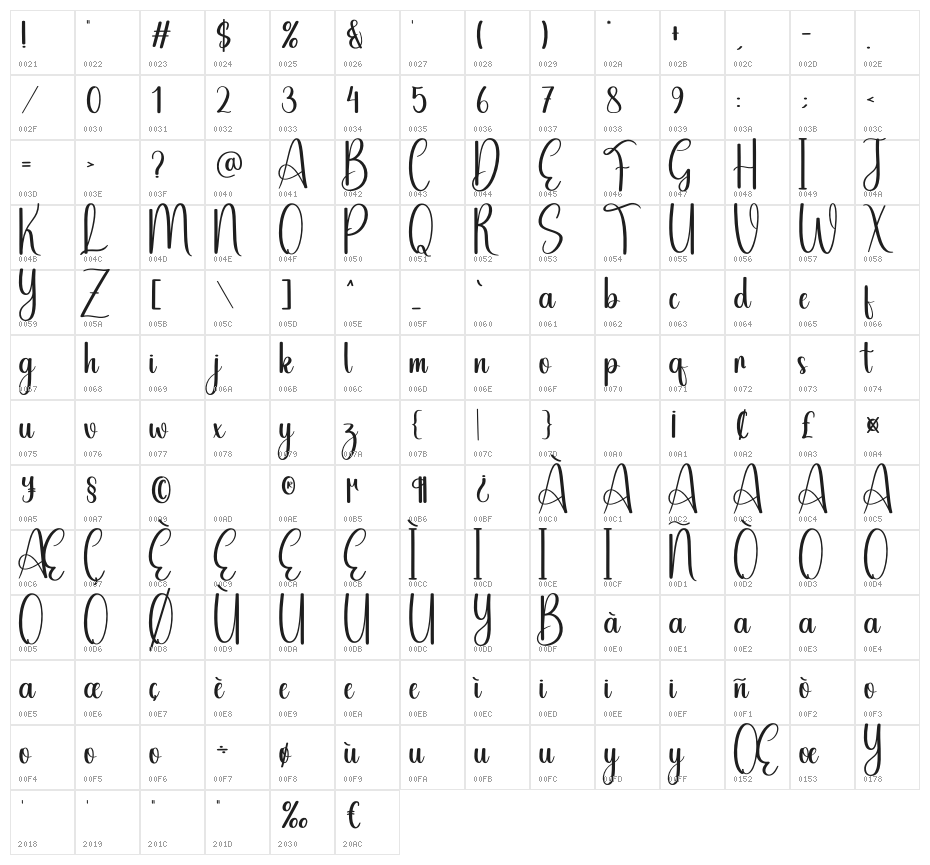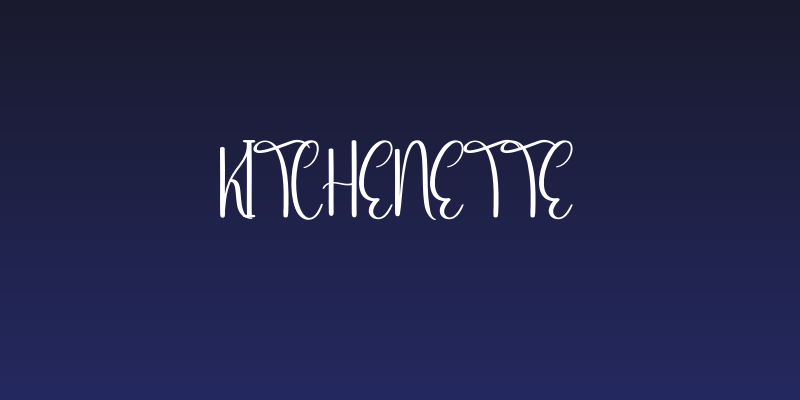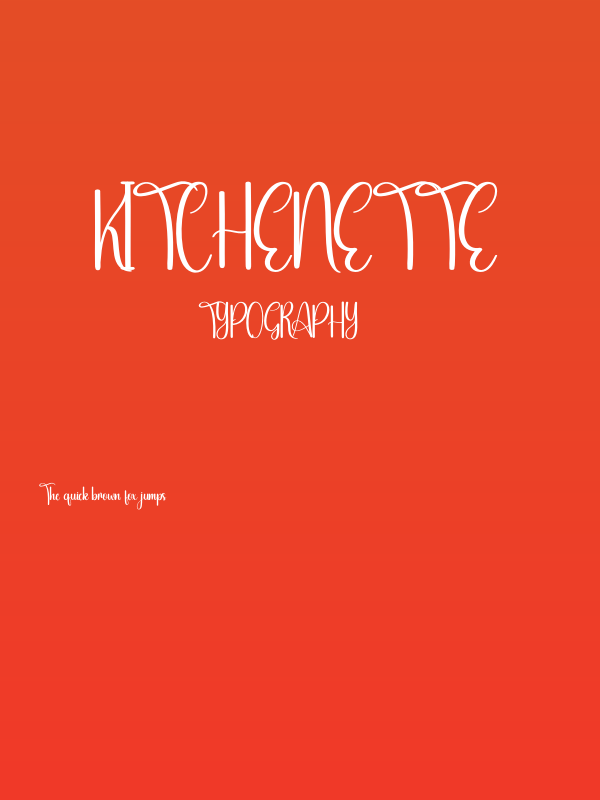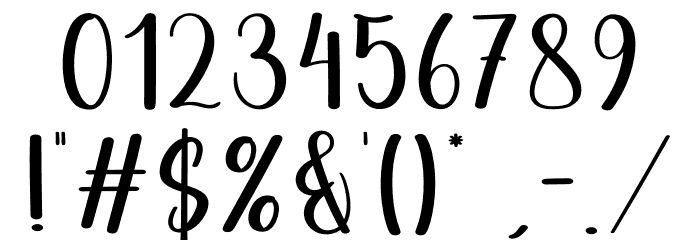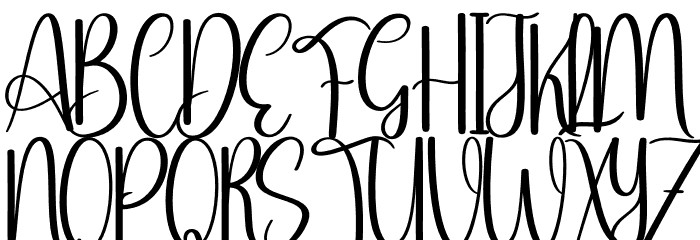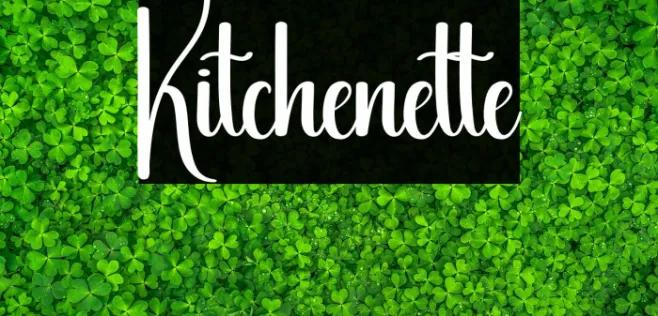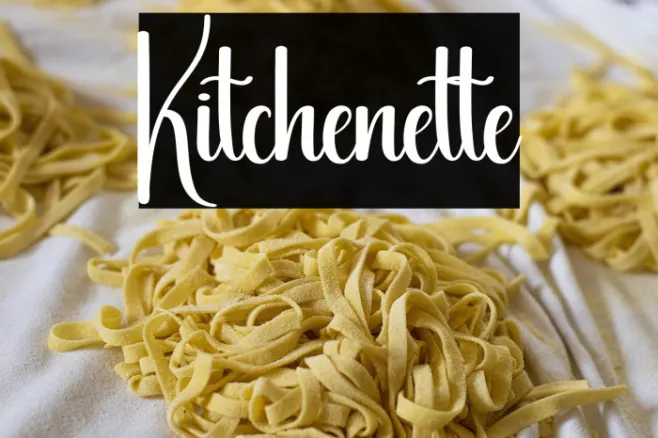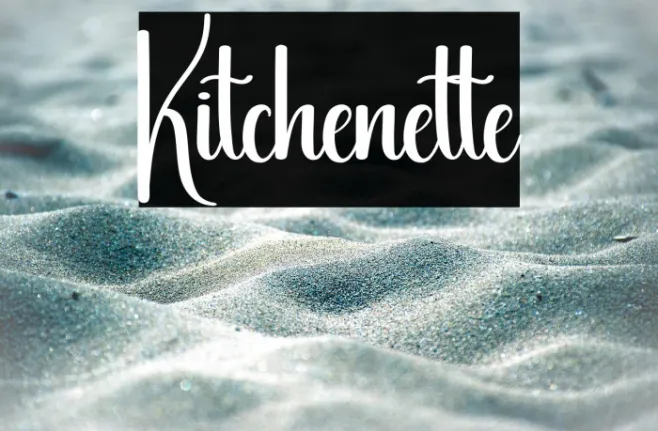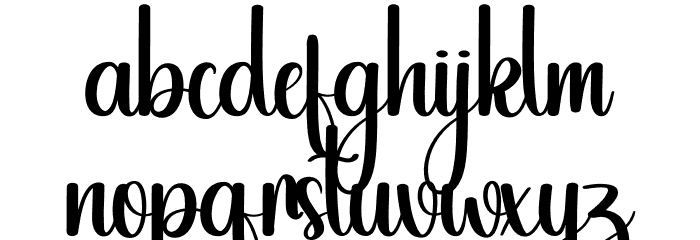
Kitchenette Font
Kitchenette Description
A playful, handwritten script font with tall, narrow letterforms and exaggerated ascenders and descenders. The strokes are smooth and fluid, giving a whimsical and informal feel. The uppercase letters are especially elongated, while the lowercase maintains a friendly, approachable appearance.
| Overall Style | Decorative, Playful, Whimsical |
| Use Case | Logos, Headlines, Invitations, Greeting cards |
| Proposed Projects | Greeting cards, invitations, branding for bakeries or cafes, playful posters, social media graphics. |